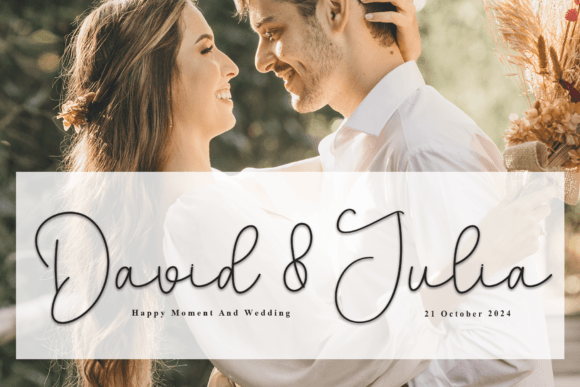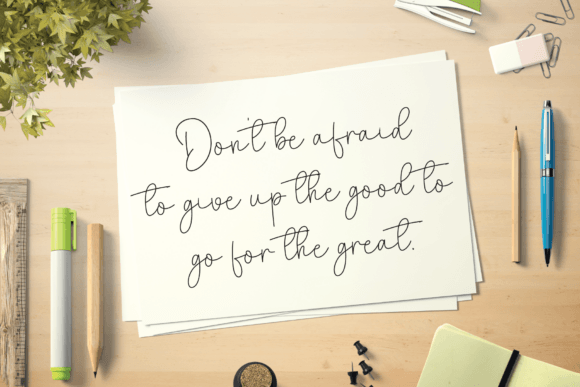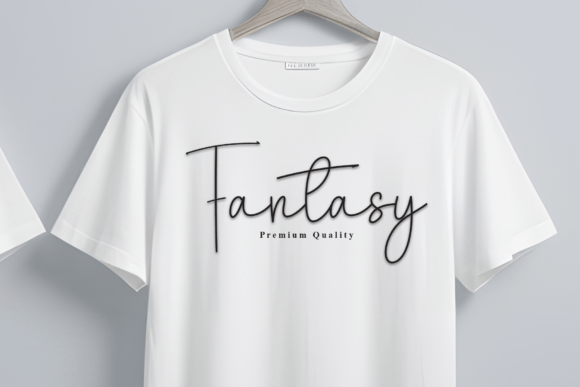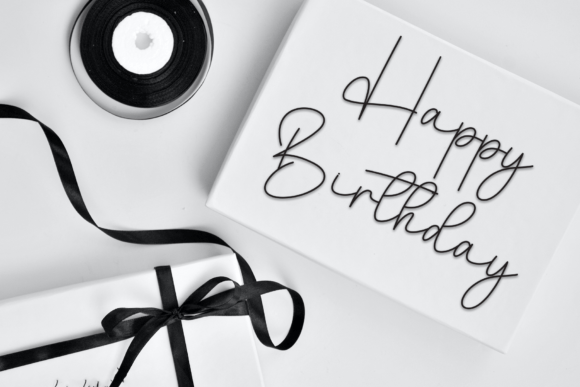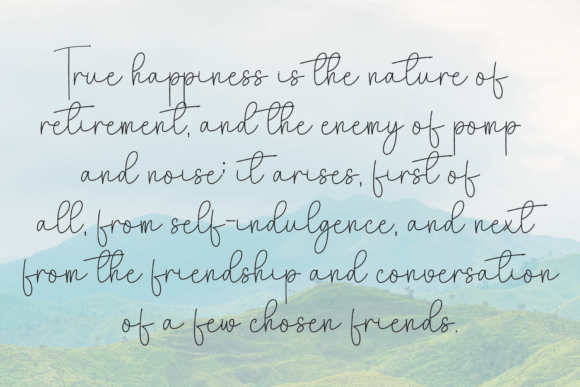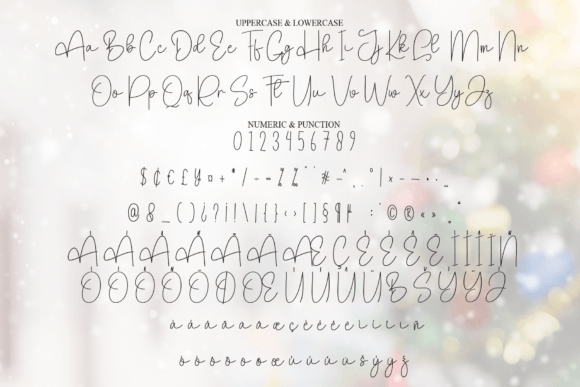
Christmas Wonderful Font: Add a Touch of Holiday Magic to Your Designs
Are you looking for a font that captures the essence of the holiday season? Look no further than Christmas Wonderful, a charming, handwritten font that’s perfect for adding a cozy, festive feel to your designs. In this article, we’ll dive into the features and benefits of Christmas Wonderful, and explore how you can use it to create stunning holiday cards, decorations, and seasonal greetings.
What is Christmas Wonderful Font?
Christmas Wonderful is a beautifully crafted, handwritten font that’s designed to evoke the warmth and joy of the holiday season. Each letter has a smooth, flowing style that gives it a elegant, yet approachable feel. The font is perfect for designers and crafters who want to add a personal touch to their holiday designs, without sacrificing professionalism.
Key Features of Christmas Wonderful Font
- Charming, handwritten style: Christmas Wonderful has a unique, hand-crafted feel that’s perfect for holiday designs.
- Smooth, flowing letters: Each letter has a smooth, flowing style that gives the font a elegant, yet approachable feel.
- Perfect for holiday designs: Christmas Wonderful is designed specifically for holiday designs, making it perfect for cards, decorations, and seasonal greetings.
- Easy to read: Despite its decorative style, Christmas Wonderful is easy to read, making it perfect for use in a variety of designs.
Uses for Christmas Wonderful Font
Christmas Wonderful is a versatile font that can be used in a variety of holiday designs, including:
- Holiday cards: Add a personal touch to your holiday cards with Christmas Wonderful.
- Decorations: Use Christmas Wonderful to create festive decorations, such as garlands, banners, and signs.
- Seasonal greetings: Add a touch of holiday magic to your seasonal greetings, such as Christmas or Hanukkah cards.
- Digital designs: Use Christmas Wonderful in digital designs, such as social media graphics, blog posts, and email newsletters.
Tips for Using Christmas Wonderful Font
Here are a few tips for getting the most out of Christmas Wonderful:
- Use it sparingly: While Christmas Wonderful is a beautiful font, it can be overwhelming if used too much. Use it sparingly to add a touch of holiday magic to your designs.
- Pair it with other fonts: Christmas Wonderful pairs well with other fonts, such as sans-serif fonts or script fonts. Experiment with different pairings to find the one that works best for your design.
- Experiment with colors: Christmas Wonderful looks great in a variety of colors, from traditional holiday colors like red and green to more modern colors like gold and silver.
Christmas Wonderful is a charming, handwritten font that’s perfect for adding a touch of holiday magic to your designs. With its smooth, flowing letters and elegant, yet approachable feel, it’s the perfect choice for holiday cards, decorations, and seasonal greetings. Whether you’re a designer or crafter, Christmas Wonderful is a great addition to your font collection.